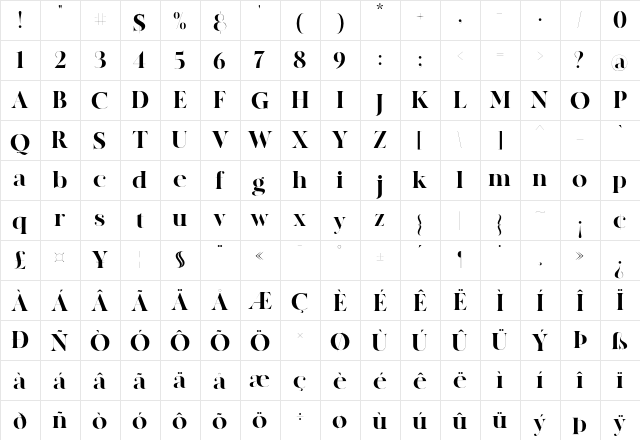
MADE Canvas Black
Design Context for MADE Canvas Typeface
MADE Canvas takes a measured approach to typography — its balanced proportions and neutral character make it a reliable workhorse for both digital and print work.
Pro Tip: Pair MADE Canvas with a font of contrasting weight or personality to build a more expressive typographic hierarchy.